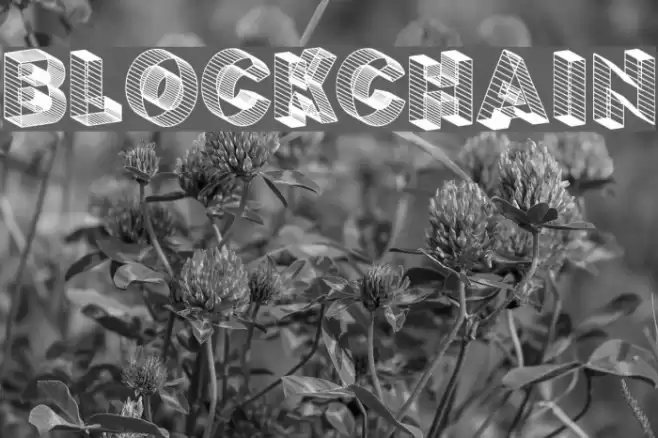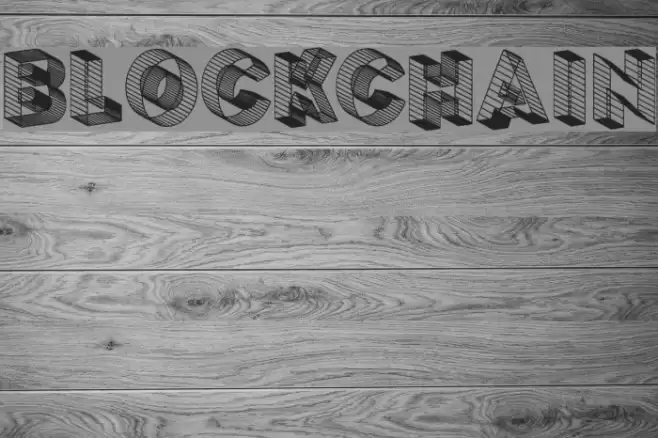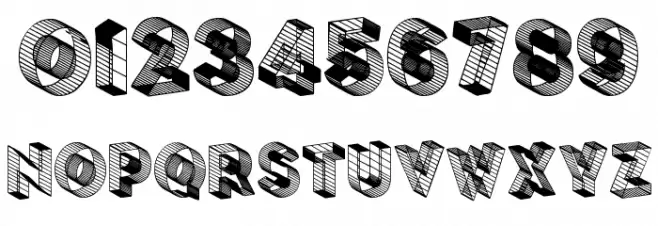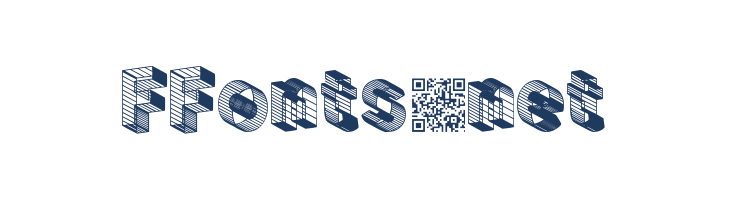
BLOCKCHAIN Font
BLOCKCHAIN Description
This font features a bold, three-dimensional design with a distinct geometric pattern. Each character is constructed with a series of parallel lines that create a sense of depth and movement. The letters and numbers are uniformly styled, maintaining a consistent visual theme across all characters. The font's unique structure makes it stand out, offering a modern and dynamic appearance that is both eye-catching and versatile. Its intricate design is ideal for projects that require a strong visual impact.
A bold, three-dimensional geometric font with a modern and dynamic style from Uncategorized fonts.
- Proposed Projects: Ideal for branding, posters, headlines, and any design project that requires a bold statement.